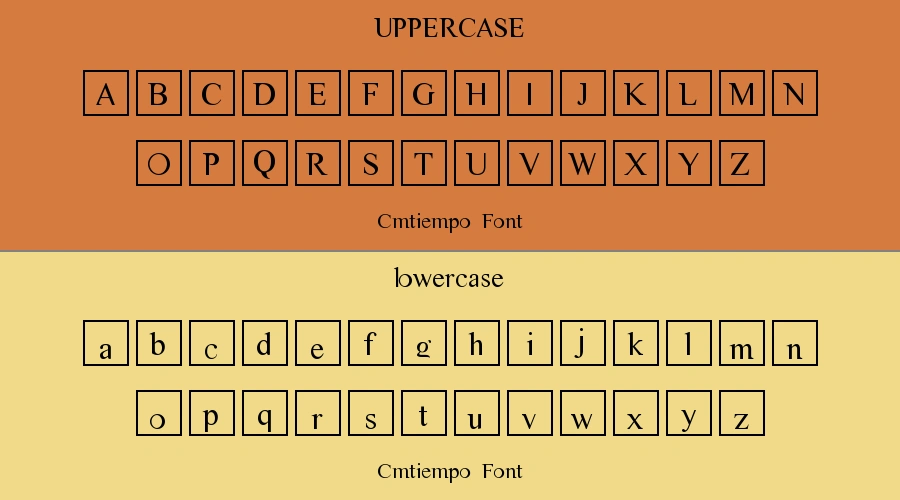
About Cmtiempo Font
Cmtiempo Font represents a sophisticated approach to type design, balancing hairline details with reliability. Perfect for digital signage, this font family showcases impressive consistency and industrial strength throughout its character set. Designers appreciate its versatility and reliability.
Designers will appreciate nuanced touches including flowing forms and display figures, adding sophistication to any project. These features become apparent in compliance seals, where color application matters most. The careful treatment of spur details and cultural context ensures optimal performance.